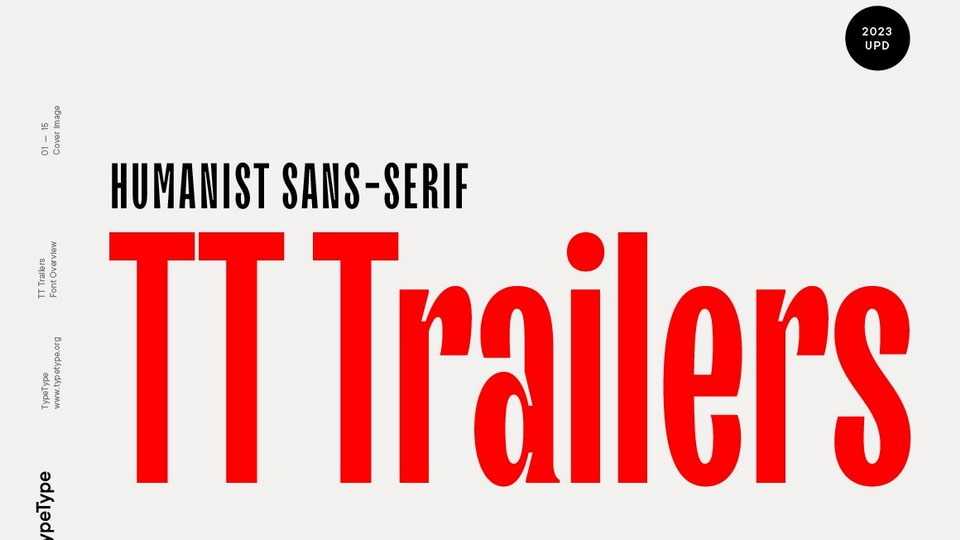
Download TT Trailers font, a condensed sans serif conceived as a typeface suitable for the film industry. TT Trailers font harmoniously looks in posters, it is ideally suited for setting titles.
Designer: TypeType Team